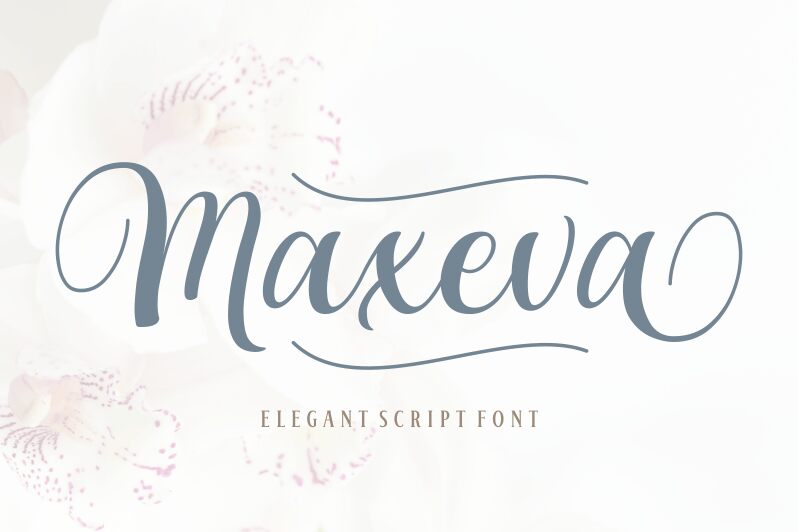
Maxeva is a captivating calligraphy font that exudes elegance and sophistication. Crafted by the talented designers Rifki Syahrul Febrianoka and Situjuh Nazara, this font boasts a harmonious blend of fluid strokes and intricate curves.
The flowing, script-like letterforms evoke a sense of artistry and grace, making Maxeva an ideal choice for a wide range of design applications, from elegant invitations and branding materials to captivating editorial layouts.
Its versatility allows it to seamlessly transition between formal and informal settings, offering designers a versatile tool to elevate their projects with a touch of refined style.